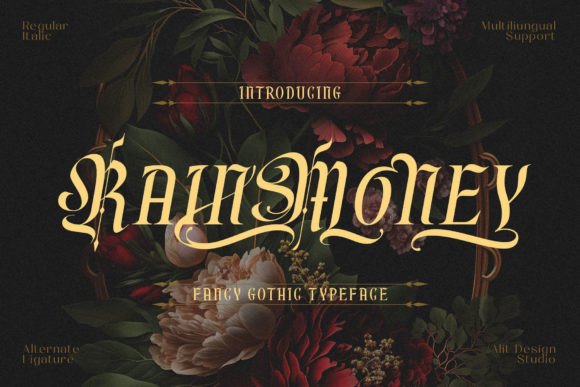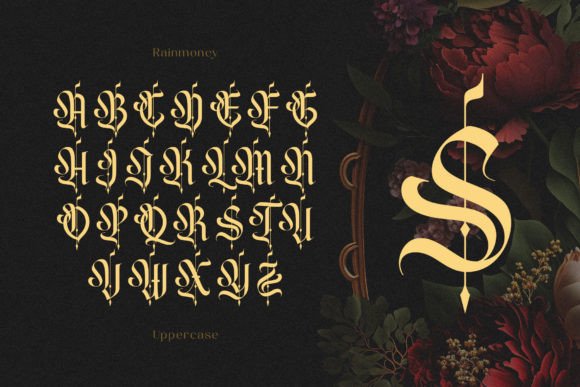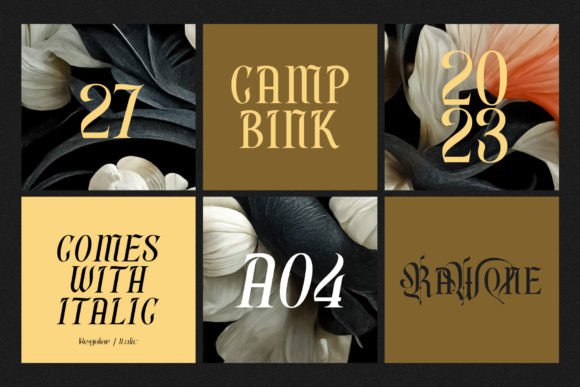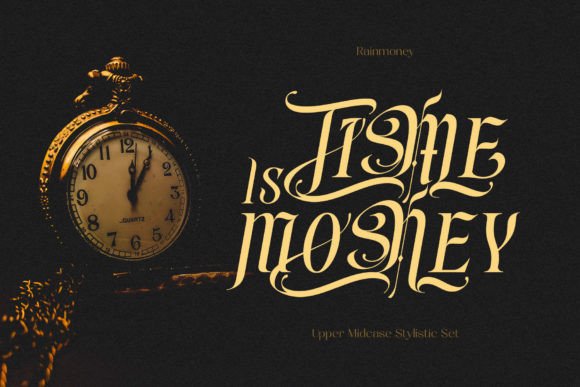
Rain Money Font: Bold Blackletter for Elegant Logo Design & Branding
About the Rain Money Font
Get ready to be inspired by Rain Money Font, a fresh and dynamic typeface for modern creators. Rain Money is a bold Gothic blackletter font with intricate details and an elegant vibe. The sharp angles and dramatic curves make a powerful statement, while the ornate design adds a touch of luxury. Perfect for creating an impressive and sophisticated look for any design project.
Rain Money excels in headline applications, short impactful statements, and luxury branding projects. Its ornate details shine in logo design, packaging for premium products, and short-form marketing materials. Avoid using it for body text or extended reading; its intricate design can hinder readability in longer passages or UI elements.
This font’s core personality is bold and elegant, conveying a sense of sophistication and power. Its dramatic flair makes it ideal for brands projecting opulence or high-end status.
Consider pairing Rain Money with a clean sans-serif like Montserrat for contrast, or a classic serif such as Garamond for a more traditional feel. For a touch of modernity, a geometric sans-serif like Futura could also work well, balancing the Gothic flourishes with a structured simplicity.
Rain Money Font Usage Examples
Rain Money Font Example